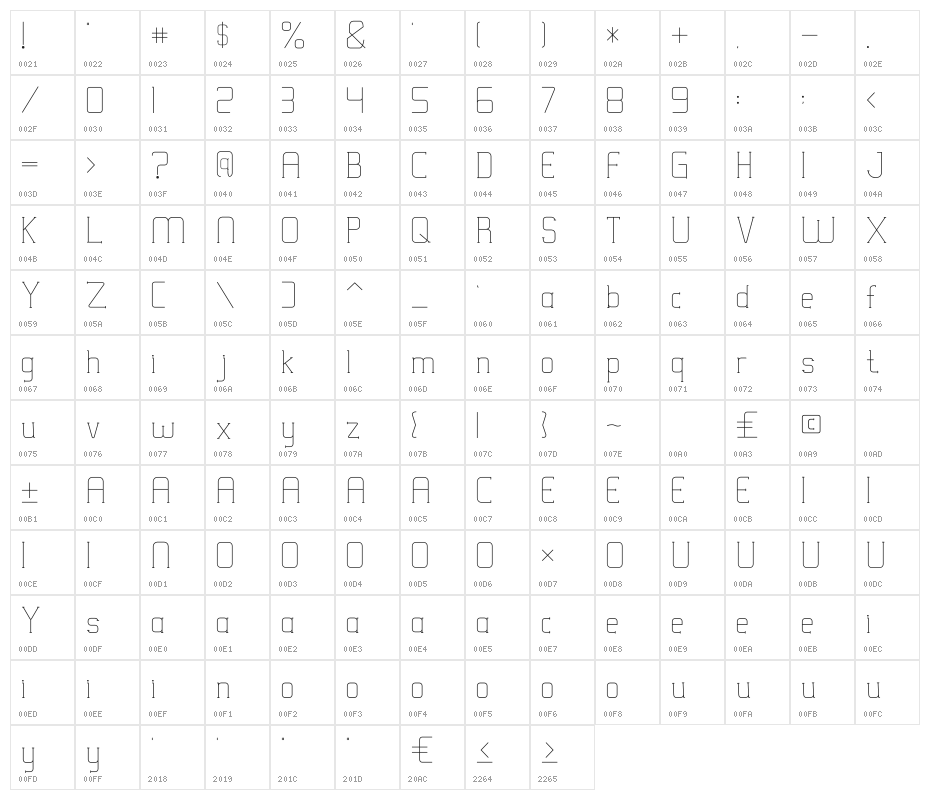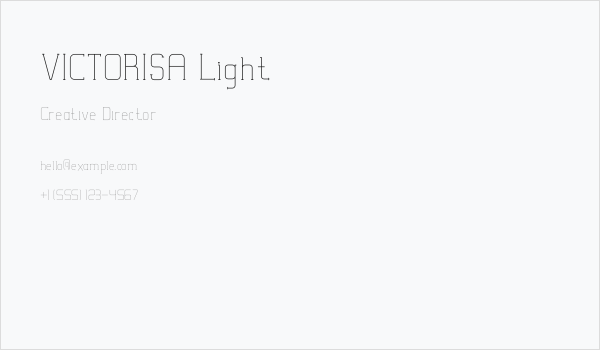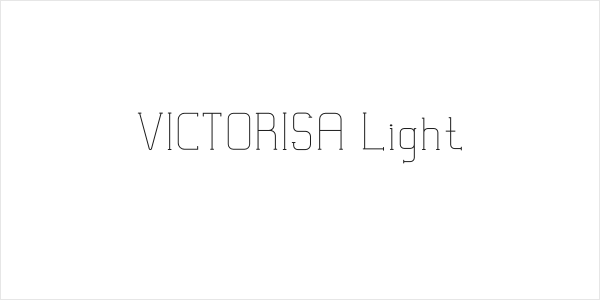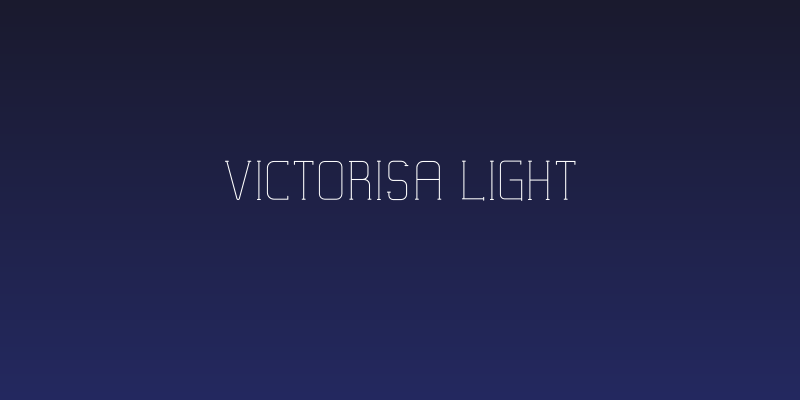
VICTORISA Light Font
VICTORISA Light Description
This font features a geometric and minimalist design, characterized by its thin, consistent stroke width and clean lines. The uppercase and lowercase letters maintain a uniform height, contributing to a modern and structured appearance. The numerals and special characters are designed with the same precision, ensuring a cohesive look across all elements. The font's simplicity and clarity make it highly legible, even at smaller sizes. Its overall aesthetic is sleek and contemporary, suitable for a variety of design applications.
Proposed ProjectsIdeal for tech branding, modern websites, app interfaces, and minimalist design projects.